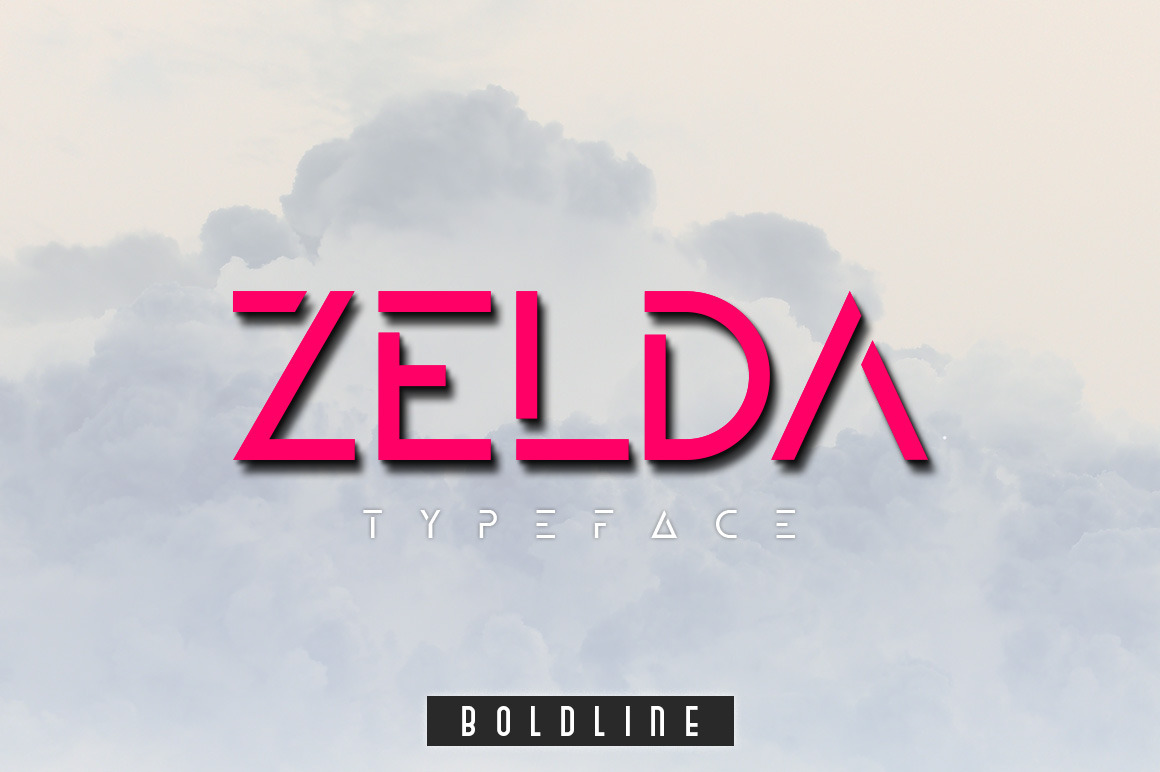
ZELDA typeface (BOLDLINE)
Hello Guys! I'm really exited to share my new typeface ''ZELDA"!
ZELDA IS AN MINIMAL DISPLAY TYPEFACE INSPIRED BY THE CLASSIC SANS SERIF FONT FAMILY. THIS TYPEFACE IS PERFECT FOR LOGOTYPES/POSTERS AND HEADLINES.